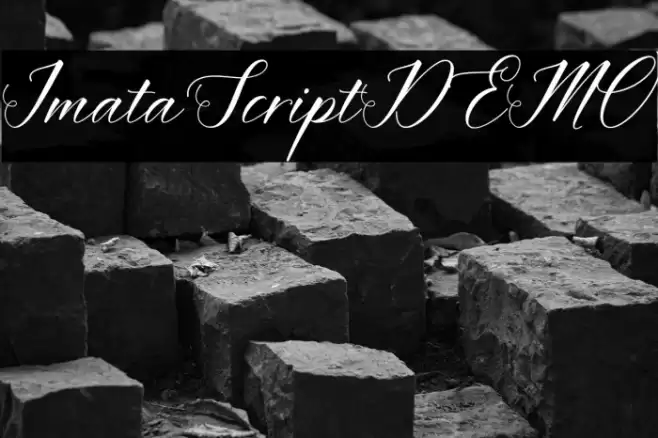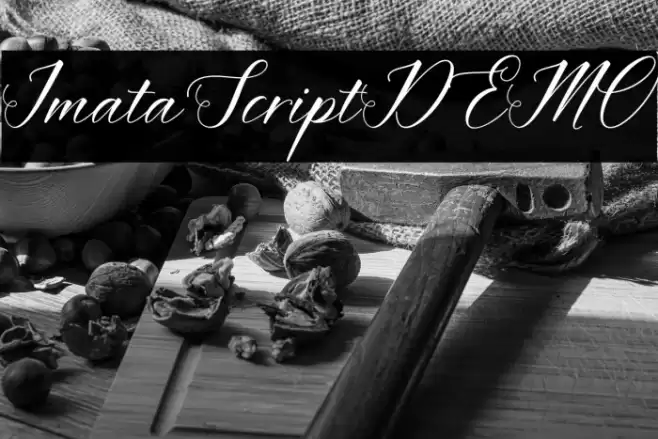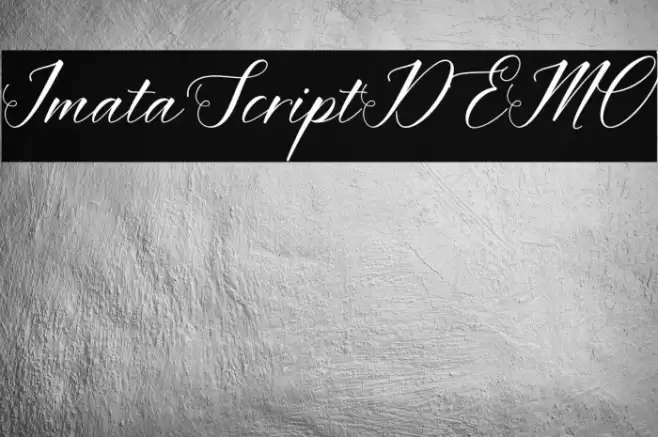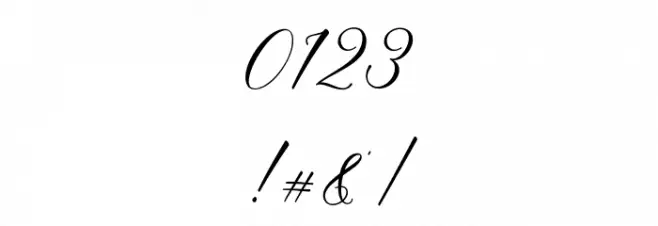
ImataScriptDEMO Font
ImataScriptDEMO Description
This elegant script font features intricate swirls and flourishes, giving it a sophisticated and decorative appearance. The uppercase letters are adorned with elaborate loops and curves, while the lowercase letters maintain a more streamlined yet still ornate style. The numerals and special characters are designed to complement the overall aesthetic, making them suitable for a variety of decorative purposes. The font's flowing lines and graceful forms evoke a sense of elegance and refinement, ideal for formal invitations, branding, and artistic projects.
An elegant script font with intricate swirls and decorative flourishes from Regular fonts.
- Proposed Projects: Ideal for wedding invitations, luxury branding, artistic projects, and decorative headings.
- Use Case: Headlines, Logos, Invitations